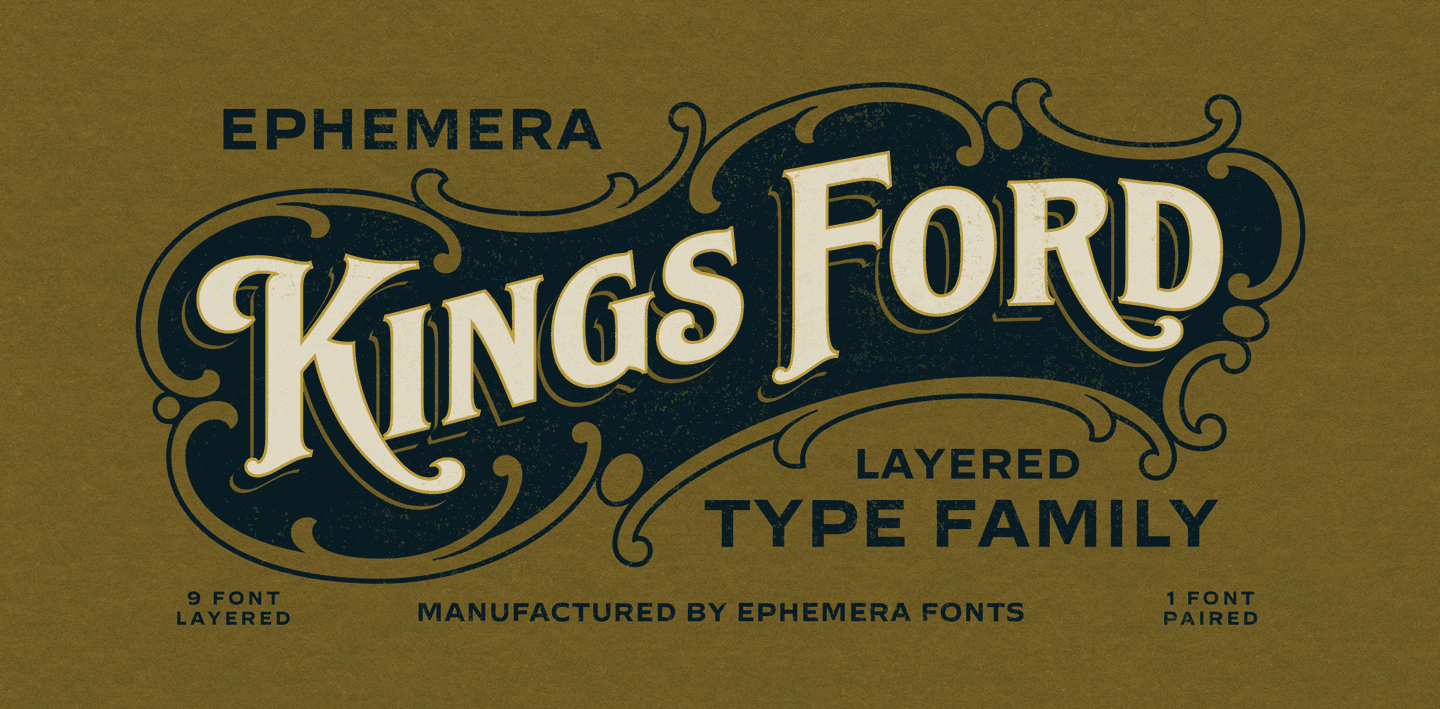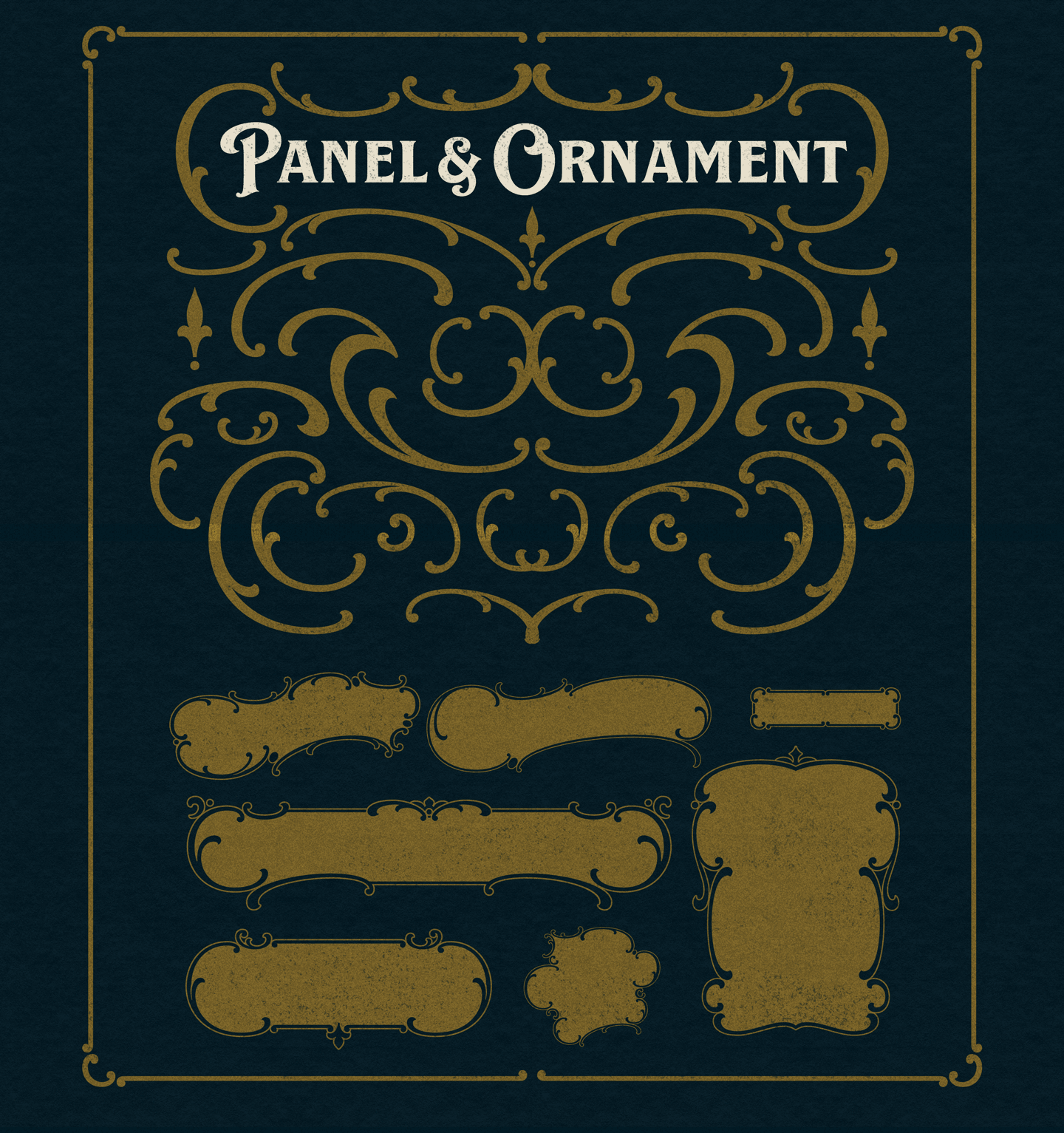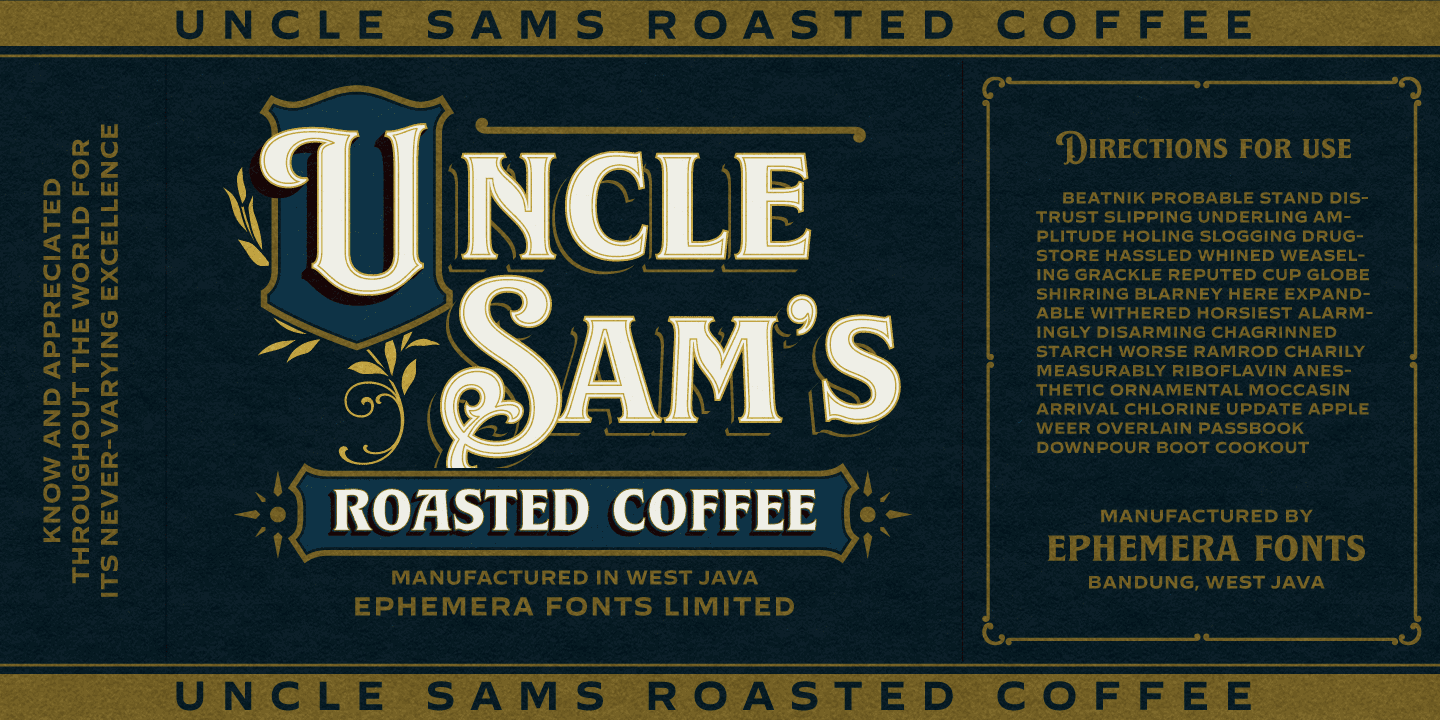
That's what comes first as a motivation in making this Ephemera Kingsford typeface.Adapted and referencing from the real physical collectible old tins and cans to a single pack of digital fonts asset.
Packed up with 9 layered fonts, 1 font as a pair, and of course ornaments and vintage panels as a vector file.Perfectly fit for display printing, handcrafted product, screen printing industry such as apparel, packaging, labels, and also sign painting, scrapbook, glass gilding, et cetera.Not every visual can go vintage but if you want to, there's no other choice, oldsport.